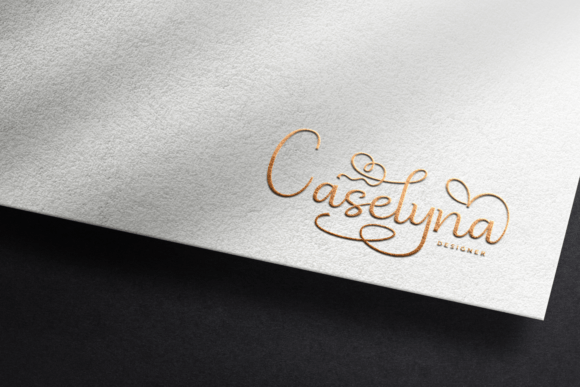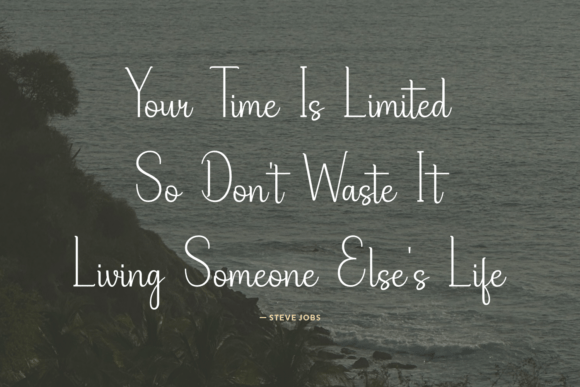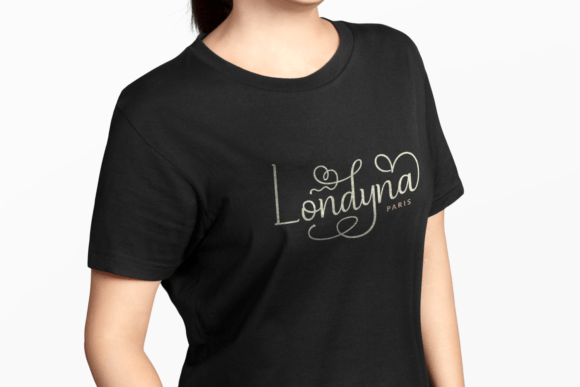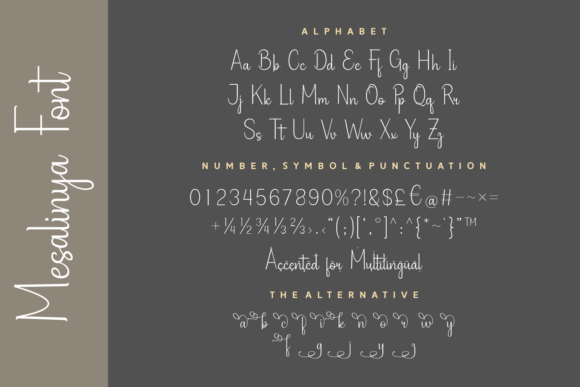
Introduction to Mesalinya Font
Mesalinya is an exquisite script calligraphy font that blends delicate elegance with decorative flair.
With its refined curves, graceful loops, and beautifully integrated swashes, this font is ideal for wedding materials, luxury branding, personal signatures, and romantic designs Mesalinya brings a timeless sophistication to your creative toolkitโperfect for when you want your text to truly enchant.
Key Features of Mesalinya Font